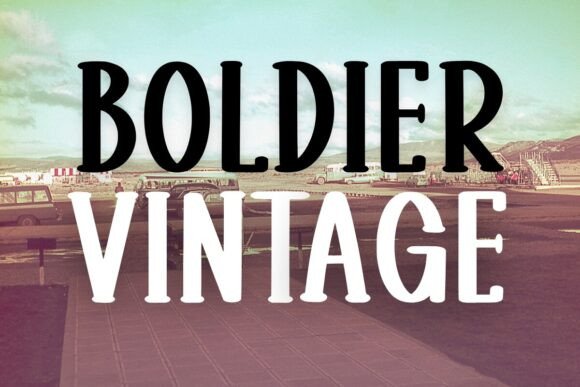
The Boldier Vintage Font: A Sweet Charm for Your Designs
Have you ever been in the middle of a design project, and suddenly, you’re stuck on finding the perfect font? I recall a recent experience where I was working on a children’s book, and my client requested a font that was both playful and clear. After scouring through numerous font libraries, I stumbled upon the Boldier Vintage font, and it instantly became the perfect fit. In this article, I’ll share my journey with this delightful font, its features, and how you can make the most of it in your designs.
A Personal Review: What I Love About Boldier Vintage
Here’s what makes Boldier Vintage a standout font:
• ✨ Unique Blend of Whimsy and Clarity: Boldier Vintage masterfully combines playful curves with clear, readable text, making it perfect for a variety of design projects.
• ✅ Warm and Inviting Personality: The rounded edges and smooth lines of this font radiate a sense of warmth and friendliness, ideal for capturing the attention of your audience.
• 🎨 Versatility: Whether you’re working on children’s books, invitations, branding, or any other project that requires a touch of playfulness, Boldier Vintage fits right in.
While Boldier Vintage is an excellent font, there are a few minor considerations:
• 🤔 Legibility at Small Sizes: Like many slab serif fonts, Boldier Vintage may lose some legibility when used at very small sizes. It’s best used at larger sizes where its unique features can shine.
• ⚠️ Overuse: Due to its charming and attention-grabbing nature, there’s a risk of overusing this font in a single design. Balance is key to maintaining its effectiveness.
While the origins of Boldier Vintage might be shrouded in mystery, it’s easy to imagine that its creation was inspired by a desire to bring warmth and playfulness into the world of typography. Perhaps the designer, fueled by a passion for vintage aesthetics and modern readability, crafted Boldier Vintage as a tribute to the joy of clear communication and whimsical design.
What makes Boldier Vintage suitable for children’s books? Its playful curves, clear readability, and warm personality make it an excellent choice for engaging young readers.
Does Boldier Vintage support OpenType features? Yes, Boldier Vintage supports OpenType features, allowing for more creative flexibility in your designs.
Is Boldier Vintage difficult to read at small sizes? Like many slab serif fonts, it may lose some legibility at very small sizes. It’s best used at larger sizes to maximize its impact.
In conclusion, Boldier Vintage is a charming and versatile font that can add a unique touch to your designs. Whether you’re working on a children’s book, an invitation, or a branding project, this font’s warm and inviting personality is sure to capture attention and convey your message with clarity and style.